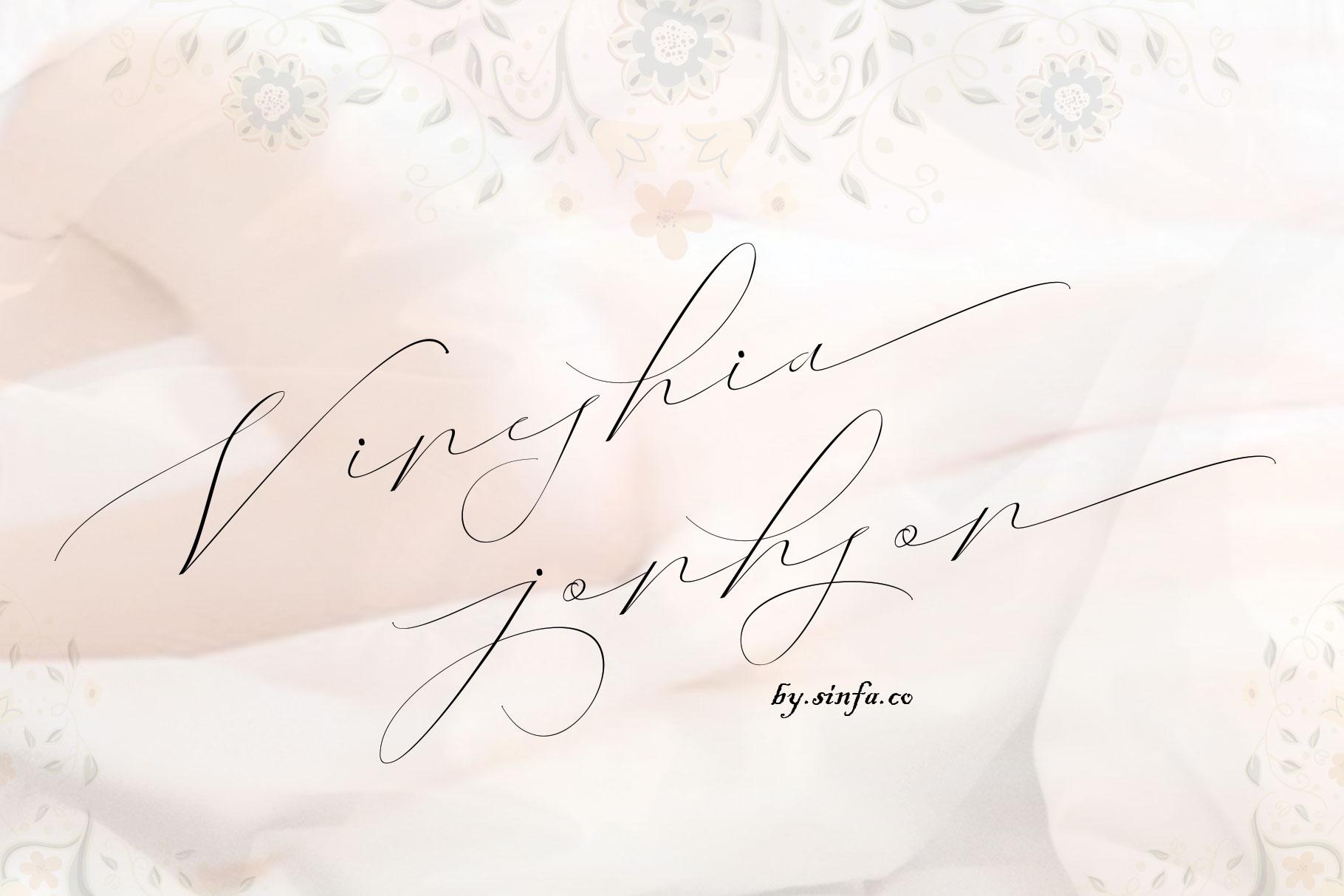
Vaneshia Jonhson Font Description
Vaneshia Jonhson is a unique and ravishing handwritten font. It looks beautiful on a variety of designs requiring a personalized style, such as wedding invitations, thank you cards, weddings, greeting cards, logos and so on.This font is PUA encoded which means you can access all of the glyphs and swashes with ease!